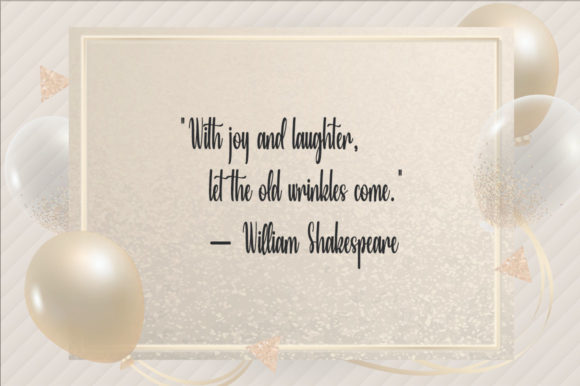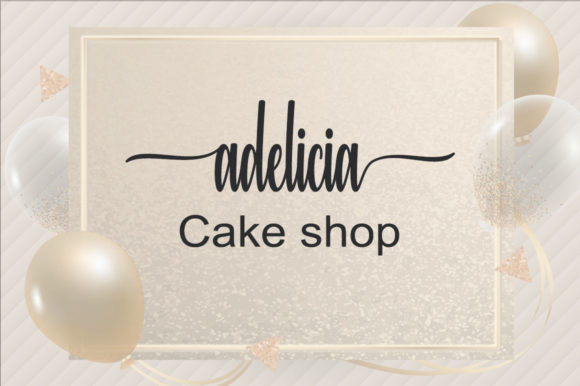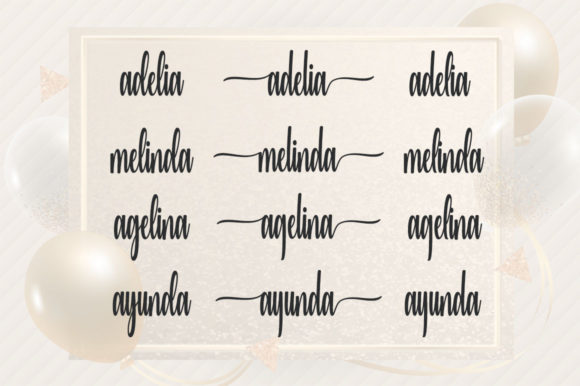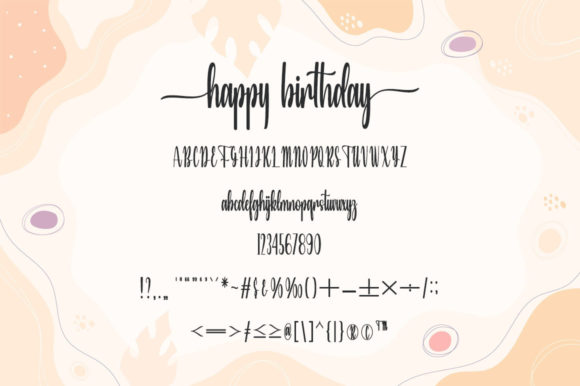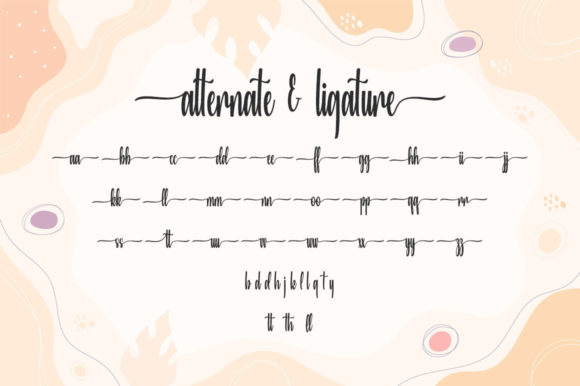
About Happy Birthday Font
Happy Birthday is an enchanting handwritten font. This versatile script font has a wide spectrum of applications ranging from greeting cards to headlines. HappyBirthday is PUA encoded which means you can access all of the glyphs and swashes with ease!